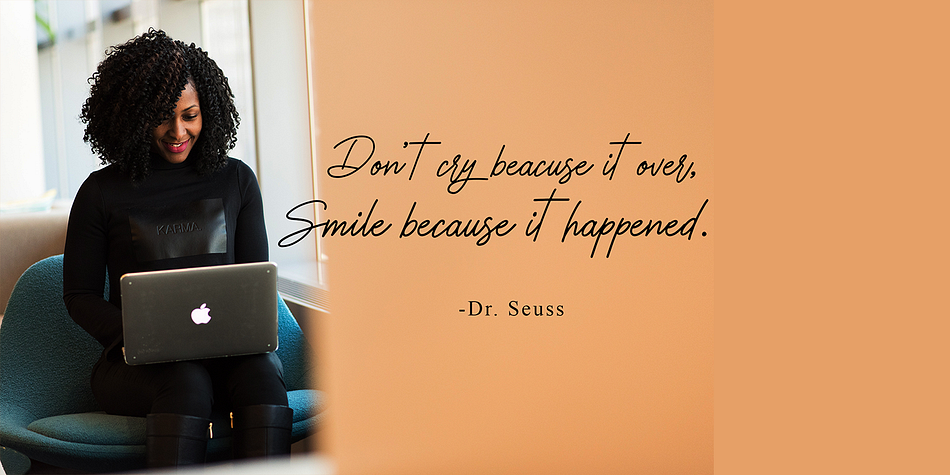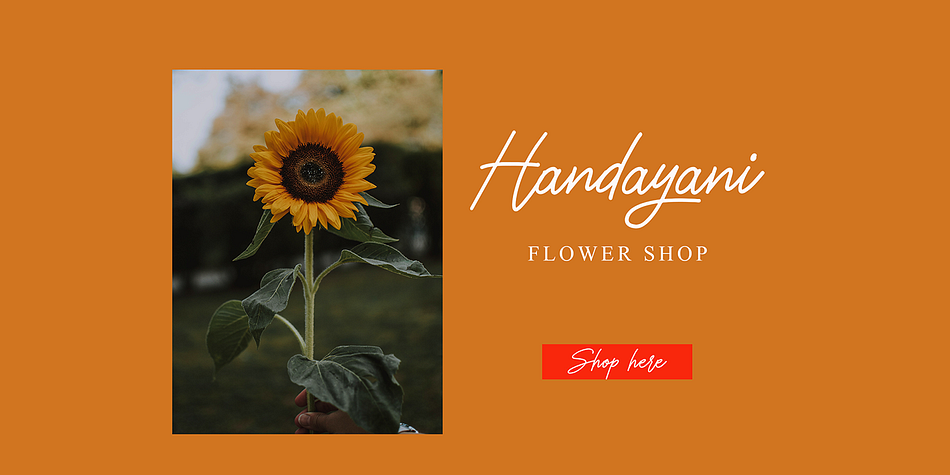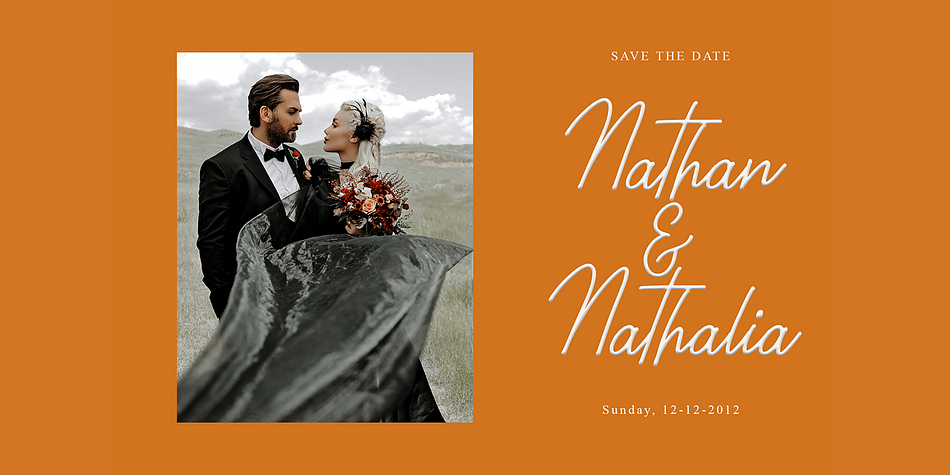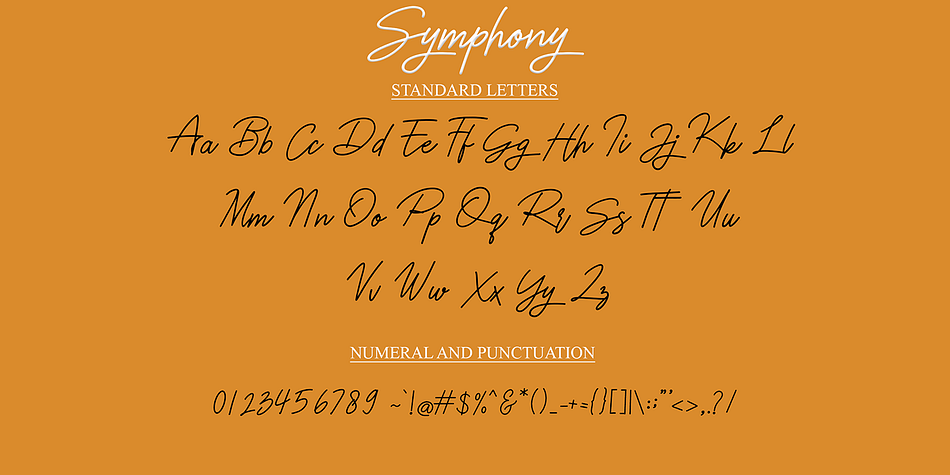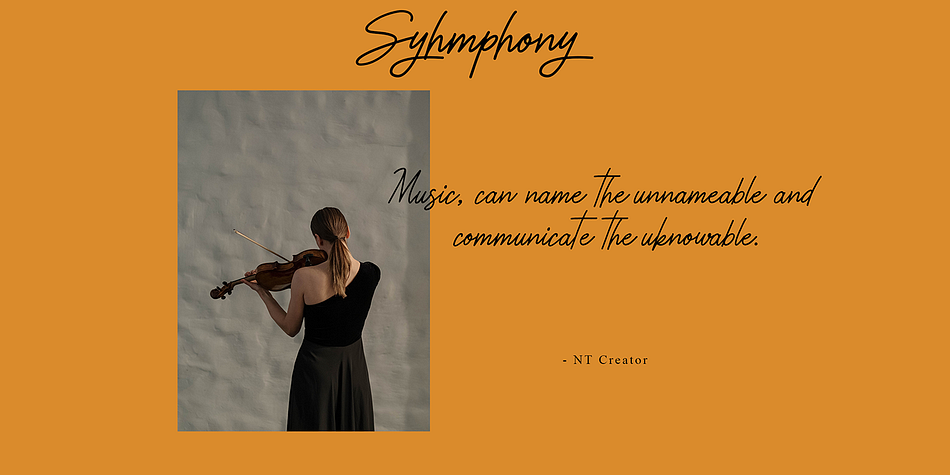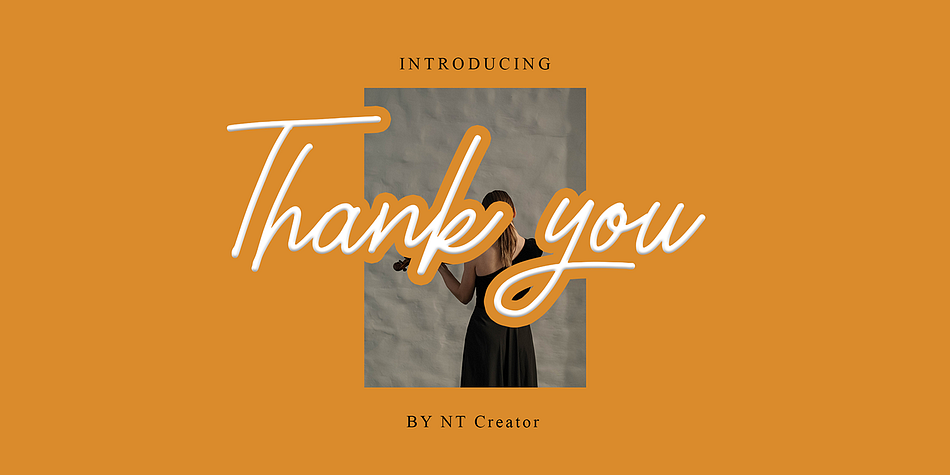
Symphony
Designed by Najmus Tsaqib, Symphony is a script font published by NT Creator.
Symphony is a romantic and sweet calligraphy typeface with characters that dance along the baseline.